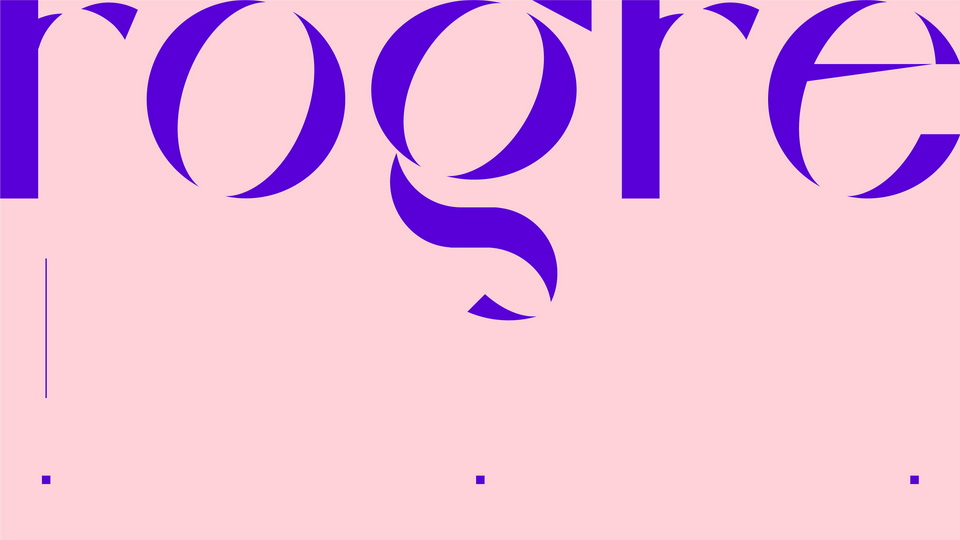
Download Rogre Display font,, an experimental typeface. Rogre Display is designed for headlines and brands with its high contrast and sharp appearance.
Designer: Atacan Öztürk